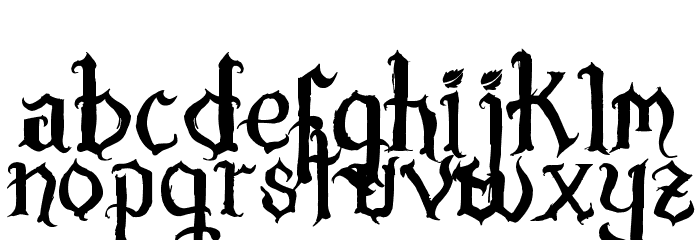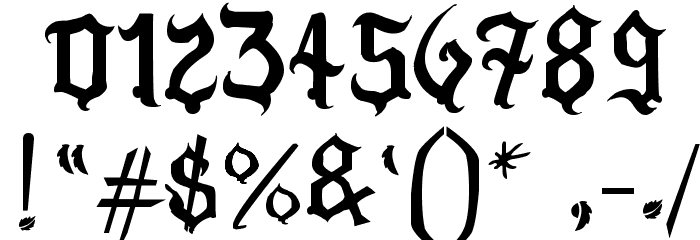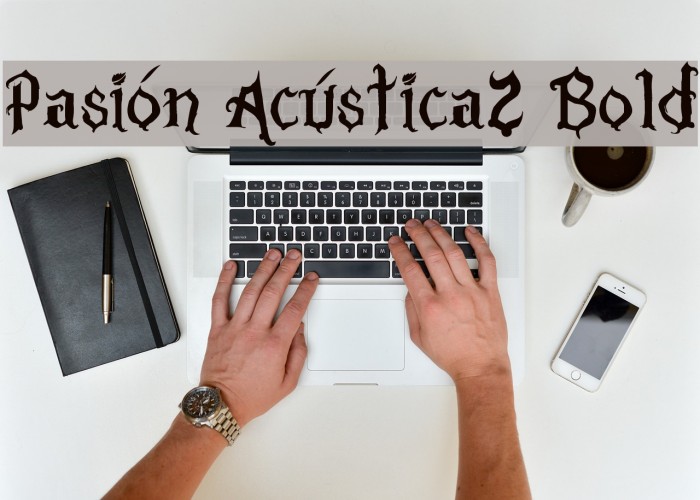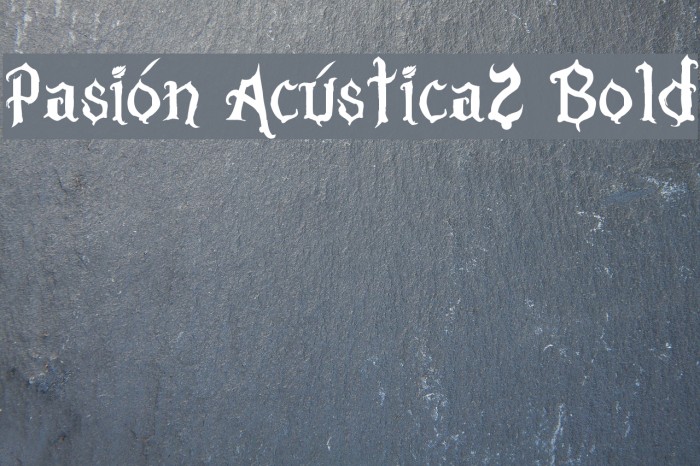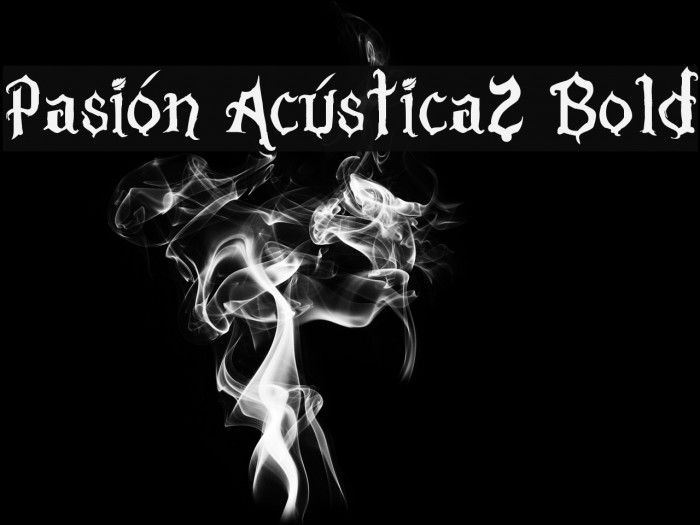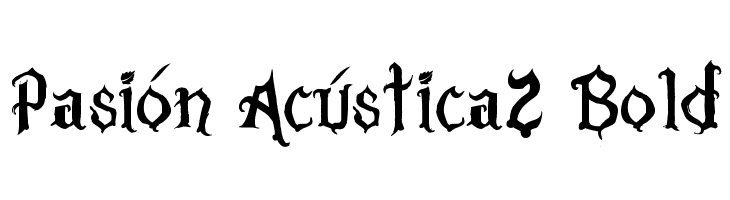
Pasión Acústica2 Bold Font
This font exhibits a bold and dramatic style, reminiscent of traditional blackletter typefaces. The characters are ornate with sharp, angular lines and intricate detailing, giving it a gothic and medieval appearance. The uppercase letters are particularly elaborate, with flourishes and extensions that enhance their decorative quality. The lowercase letters maintain the same stylistic elements but are slightly more subdued. The numerals and special characters follow the same design principles, ensuring consistency across the font. This typeface is highly stylized, making it suitable for projects that require a historical or dramatic flair.
A bold, gothic-style font with intricate, angular detailing.
- Font: Pasión Acústica2 Bold
by JuanCasco - Weight: Bold
- Proposed Projects: Ideal for use in historical-themed designs, book covers, posters, and branding that requires a dramatic and medieval aesthetic.
- Category: Blackletter
- Overall Style: Gothic, Medieval, Decorative